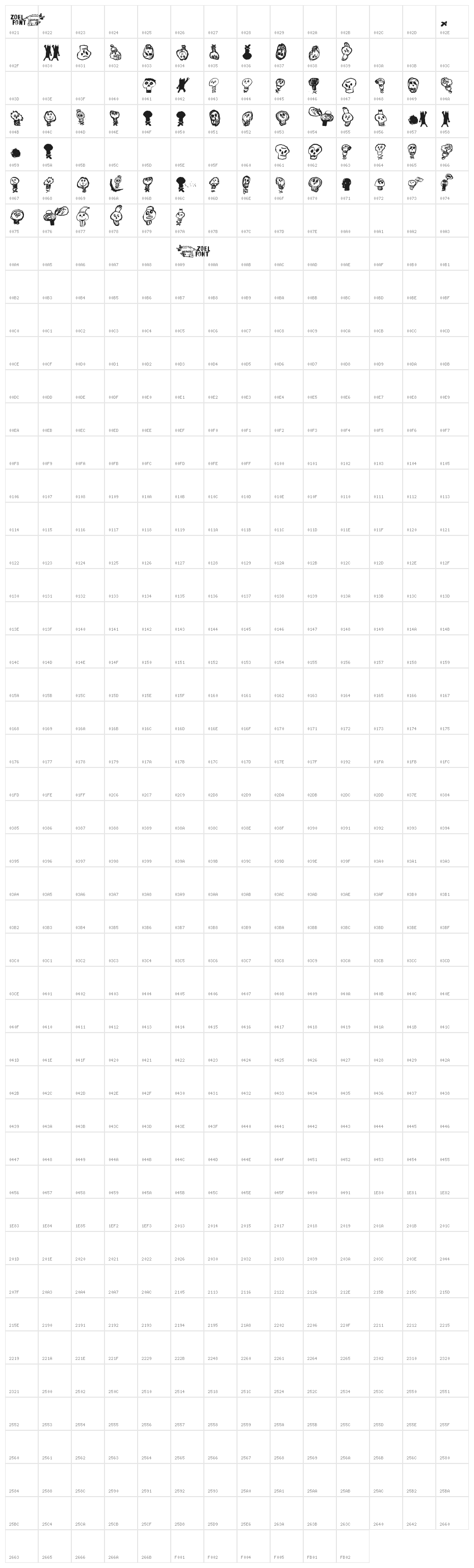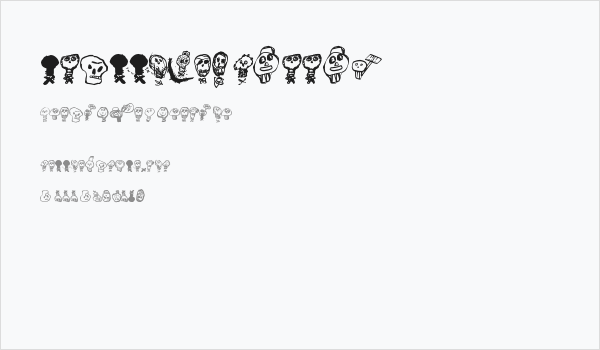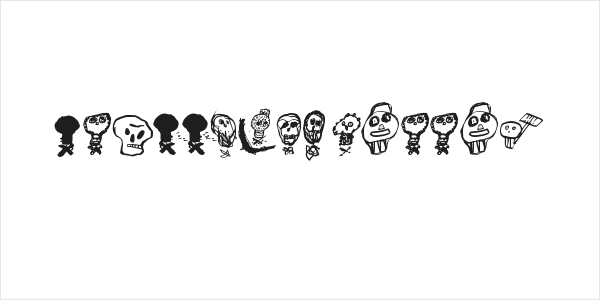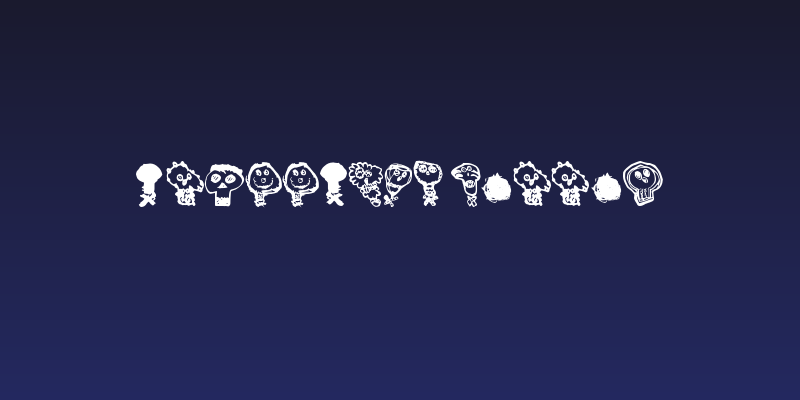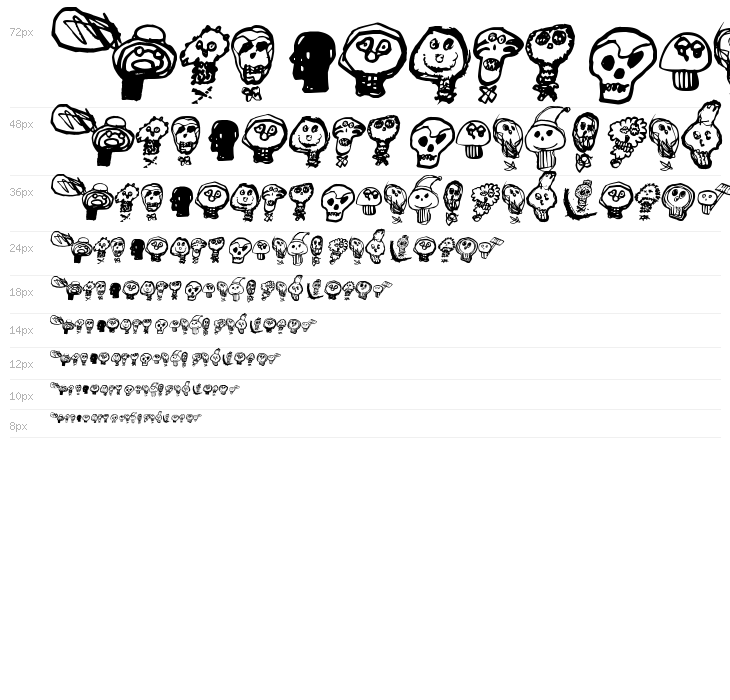
Pääkallojen hyökkäys Font
Pääkallojen hyökkäys Description
This font features a series of playful and quirky skull illustrations, each uniquely designed with a hand-drawn aesthetic. The characters are highly decorative, with each letter and symbol represented by a different skull or face, adding a whimsical and artistic touch. The style is reminiscent of doodles or sketches, with a rough, uneven line quality that enhances its charm. The font is not designed for readability in traditional text but rather as a creative element for artistic projects. Its distinct and bold appearance makes it suitable for eye-catching designs where the focus is on visual impact rather than textual clarity.
| Use Case | Logos, Posters, Artistic Projects |
| Proposed Projects | Ideal for Halloween-themed designs, artistic posters, album covers, and creative branding projects. |